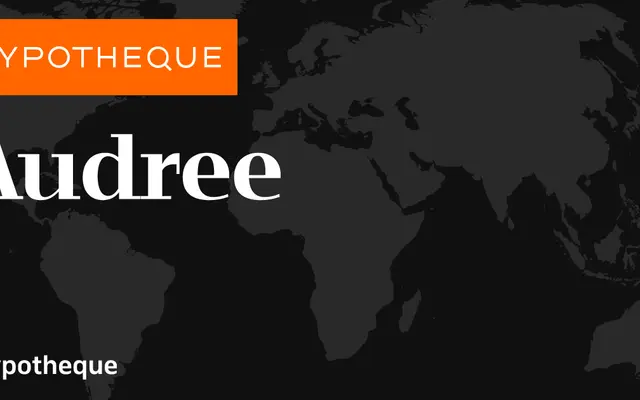
Audree specimen from Typotheque
A highly modular serif family from Typotheque with an unusually large number of variant styles organised across an alphabetical grid of sub-families.
Typotheque's Audree is a serif family distinguished by a vast system of variants, organised into lettered sub-families from A to O, each containing up to sixteen styles. This structure suggests a parametric or interpolation-based approach to type design, offering fine-grained control over optical and stylistic variables. Latin character coverage is confirmed, and the family appears suited to complex editorial or identity systems requiring precise typographic flexibility.
The page content and family naming conventions suggest a text serif family; the extensive variant system (A through O, each with 16 sub-variants) implies a highly modular or parametric approach to a traditional serif structure.